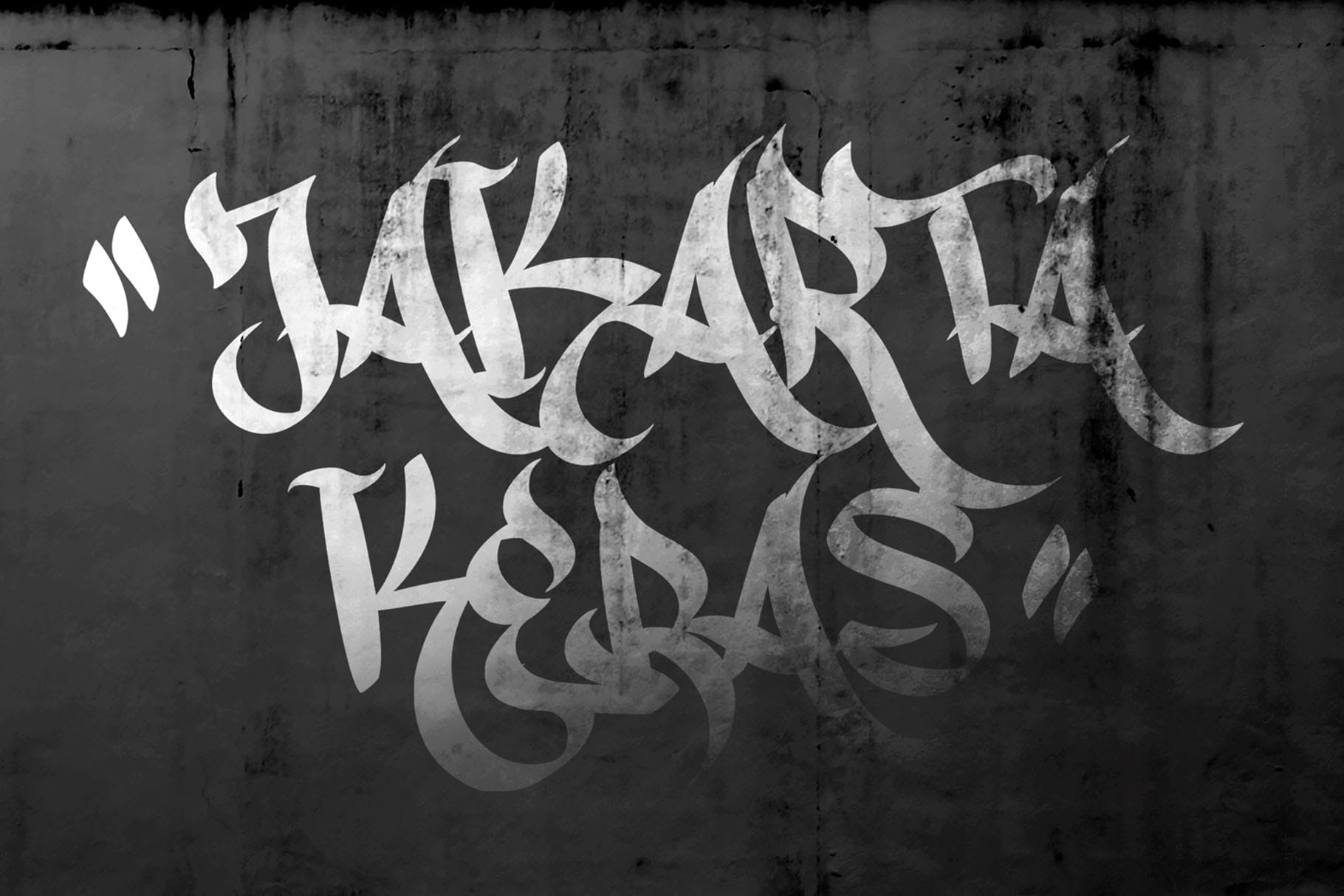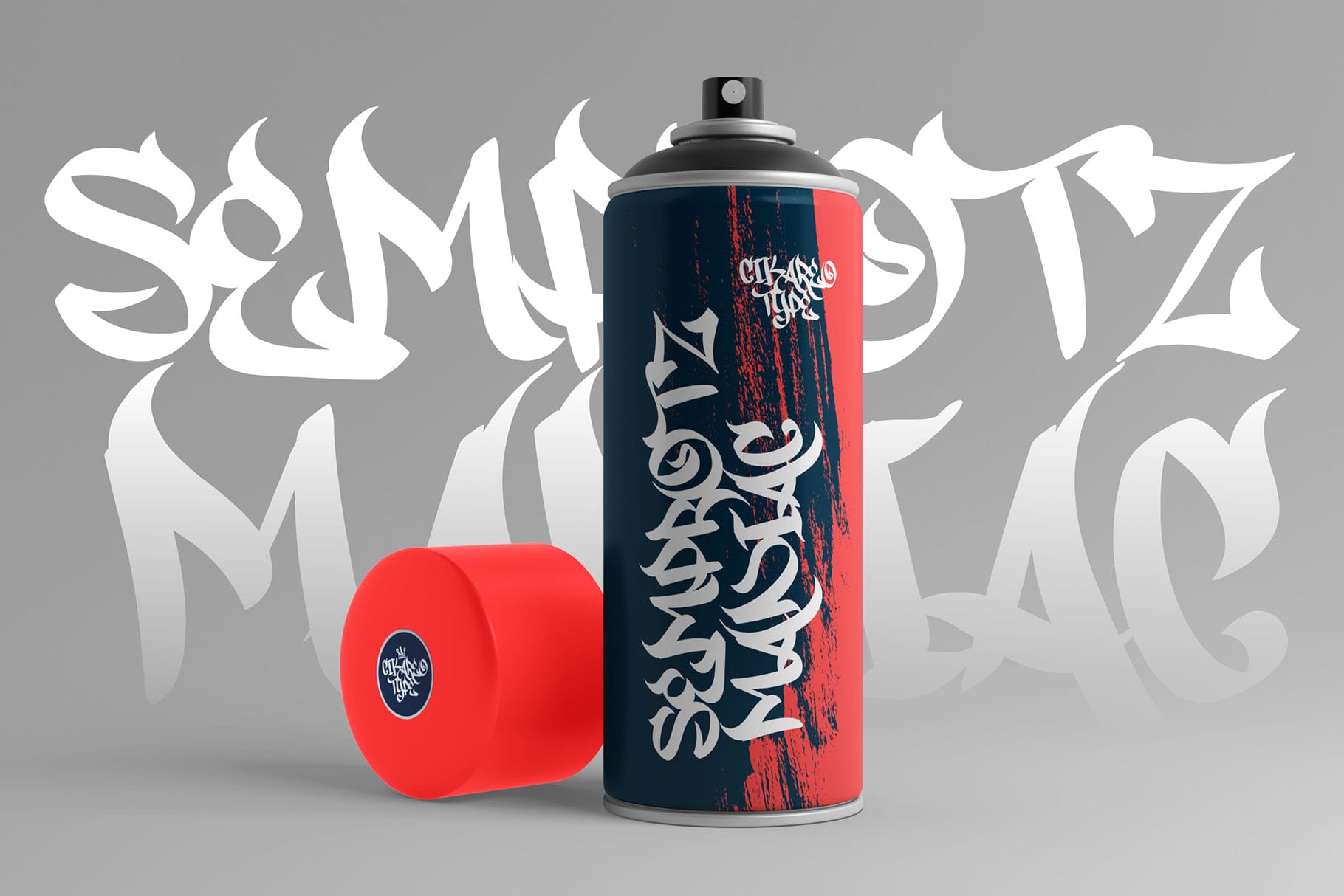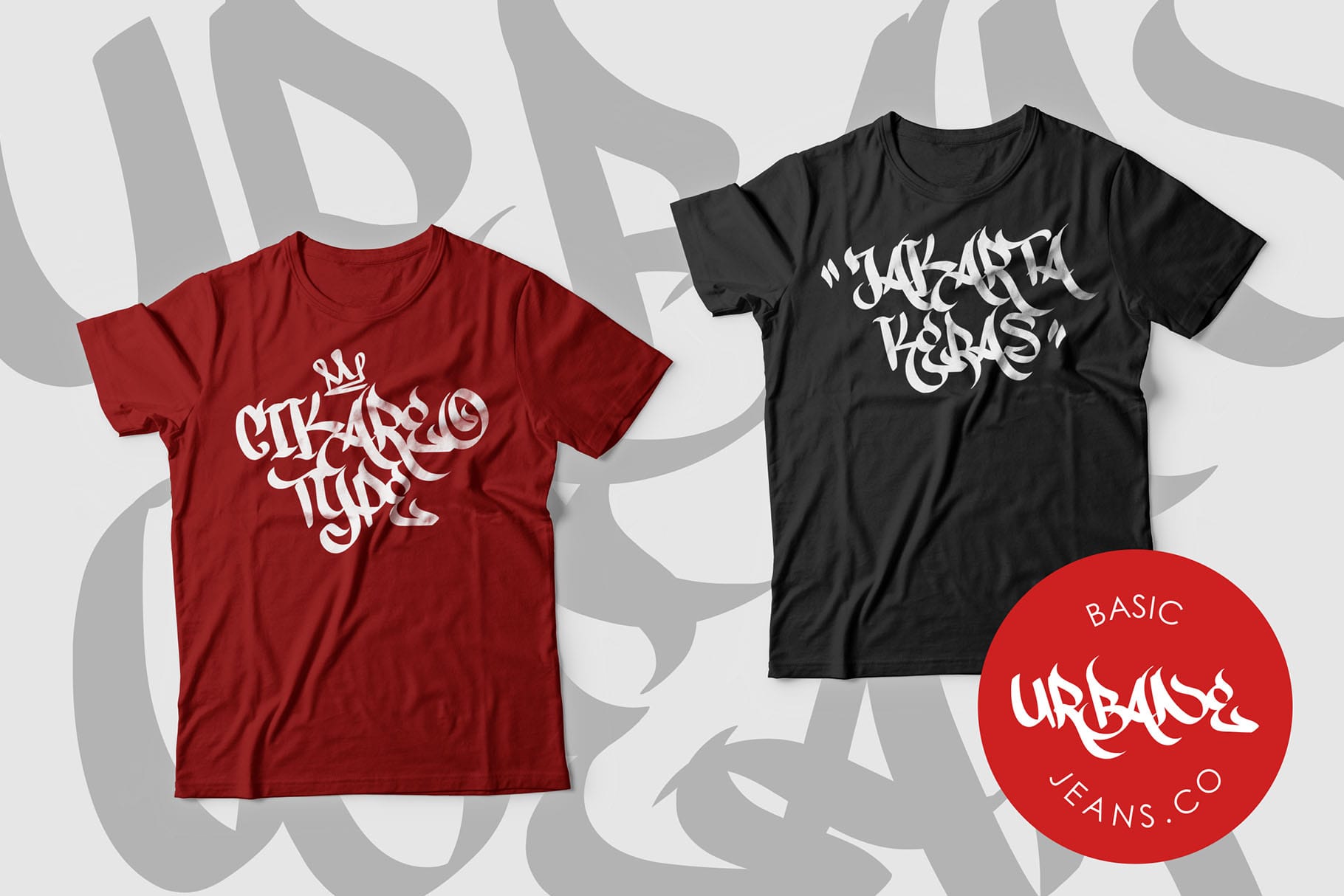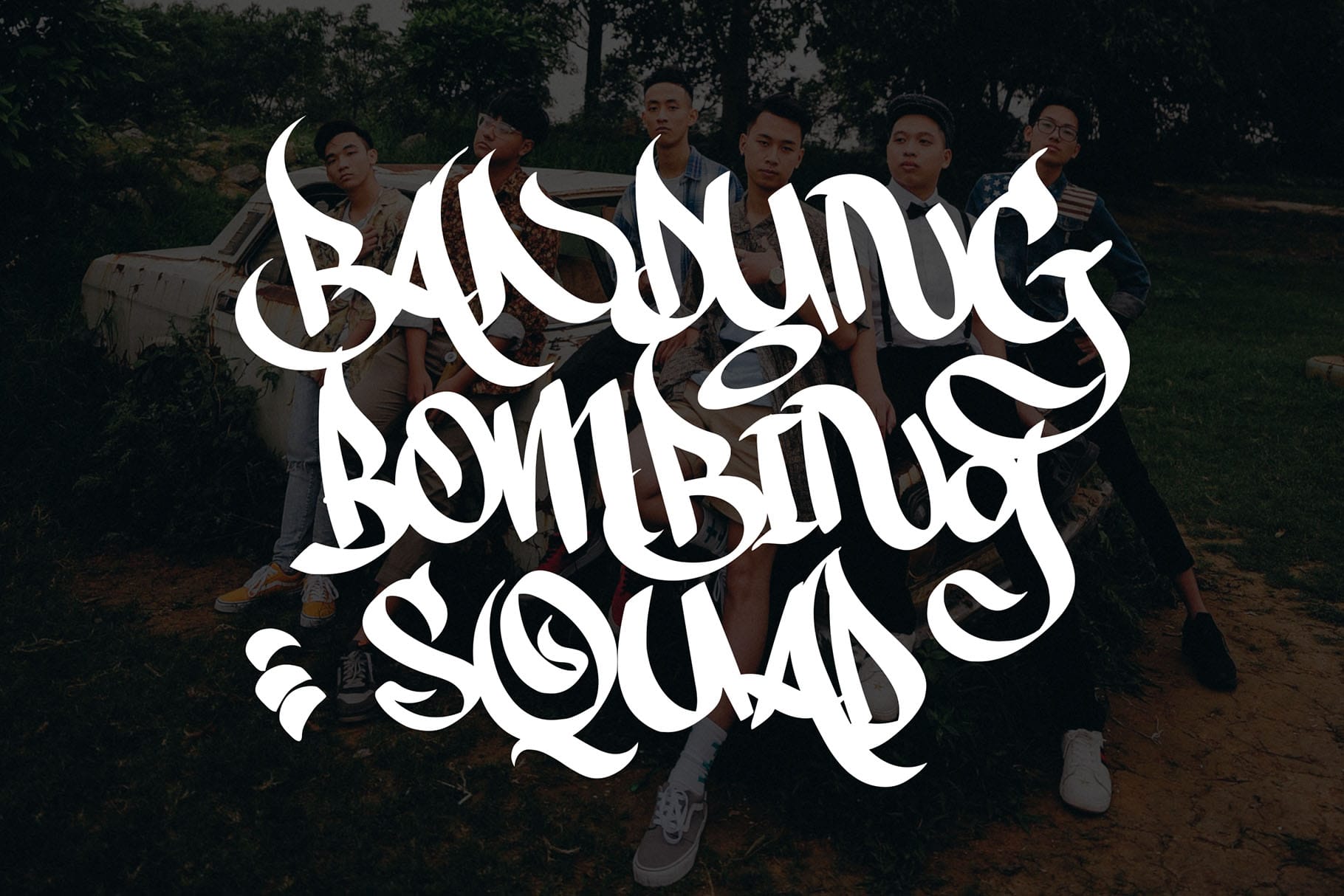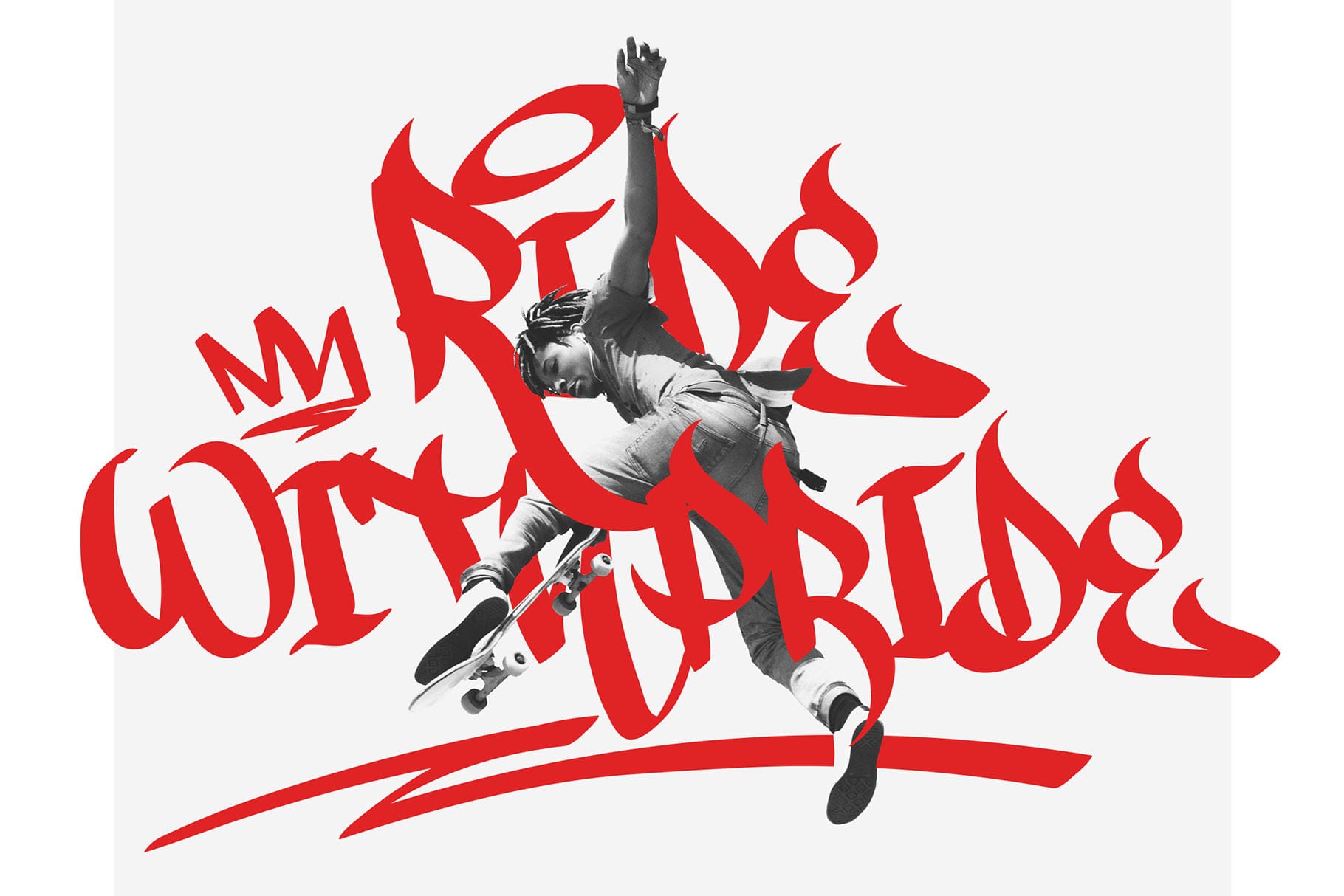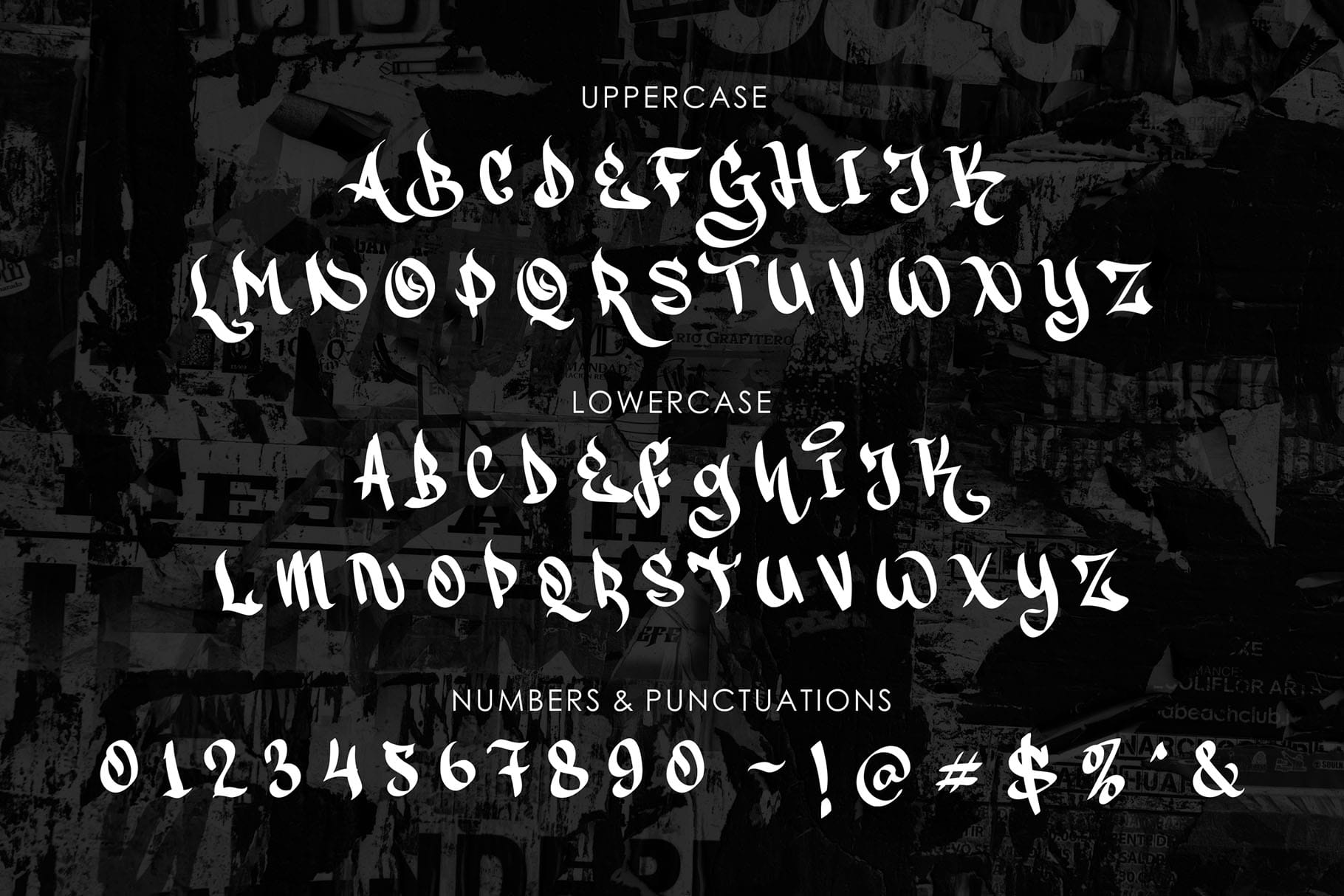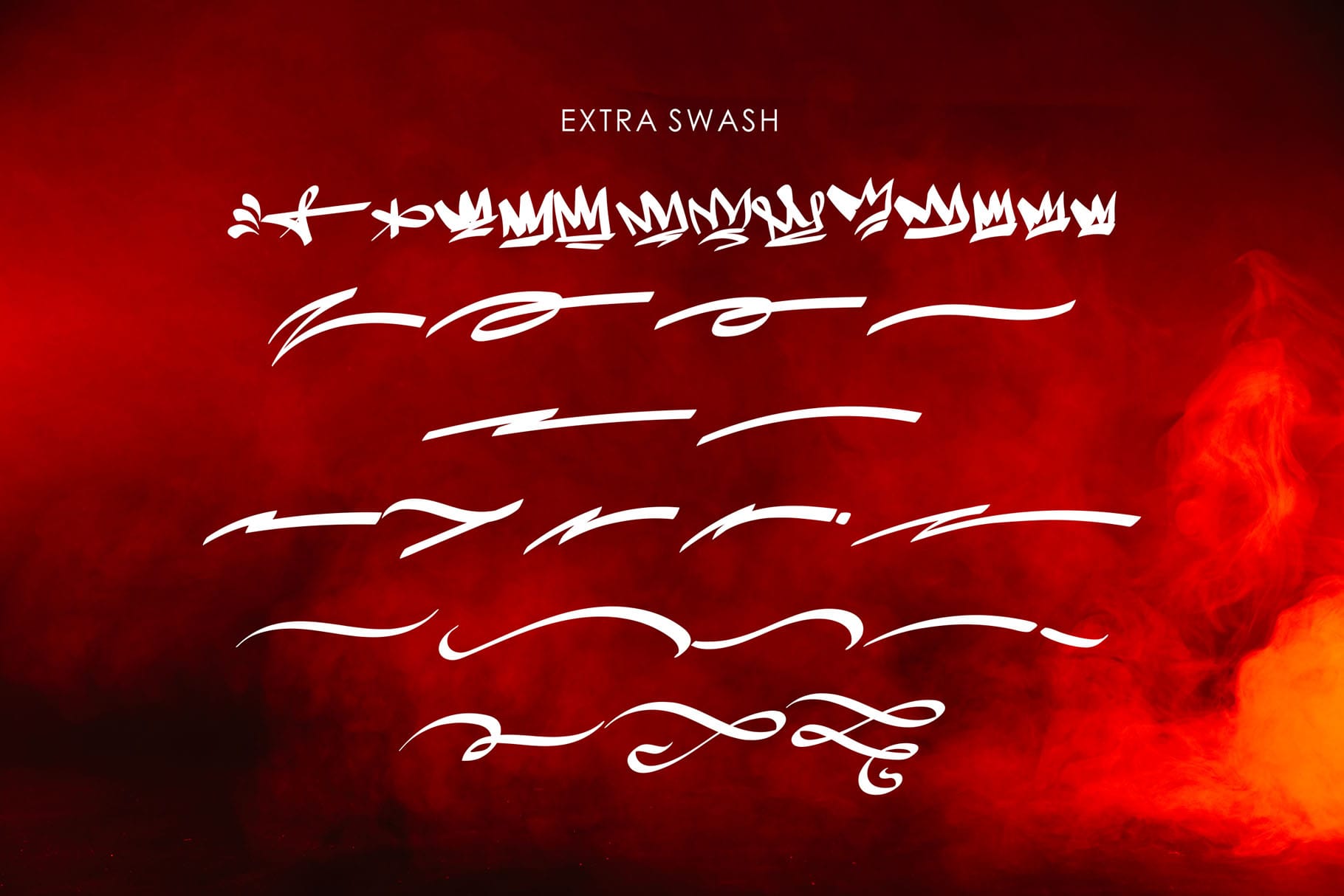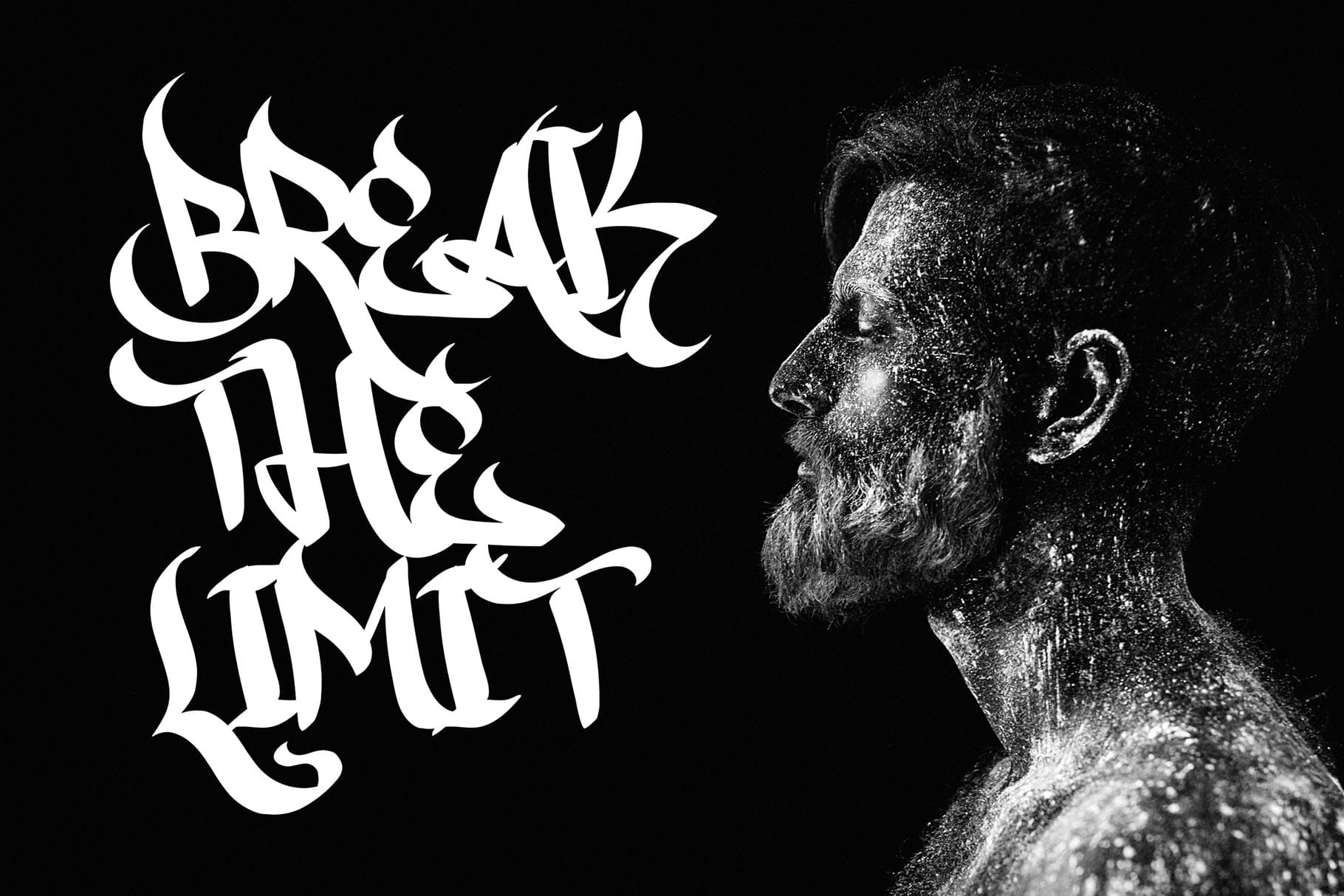
This font designed so that users can use it more easily and make graffiti designs easier. Greatboyz is very suitable for use in various media such as; packaging, logos, labels, posters, shirt designs, bulletins, typography, and many other media, especially with graffiti look.
- Uppercase & Lowercase
- Number and Punctuation
- Bonus Swash
- Versatile for branding, headline, or printing product